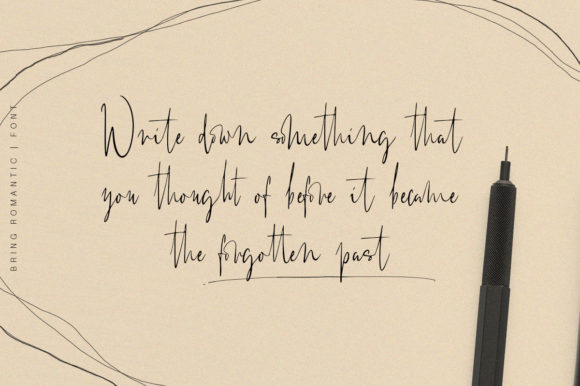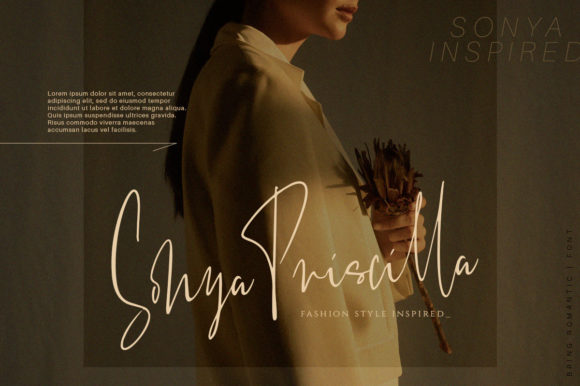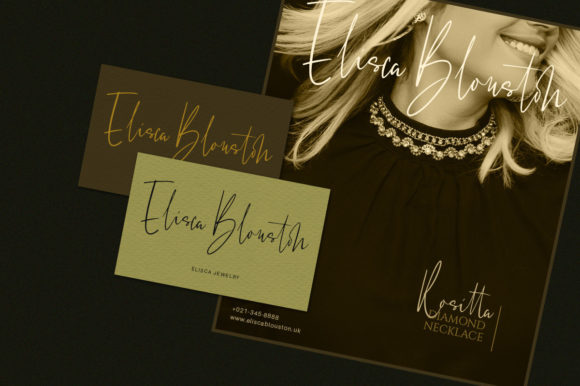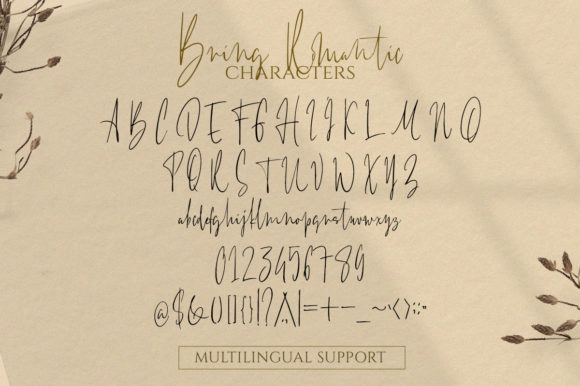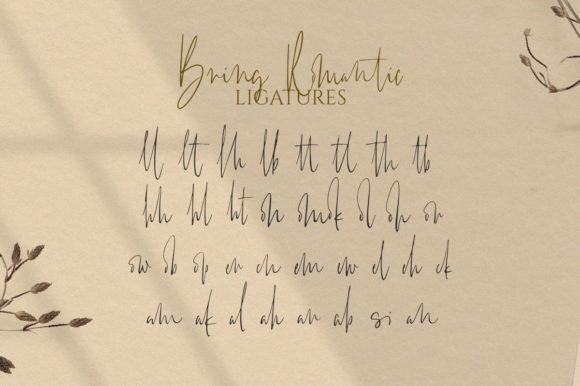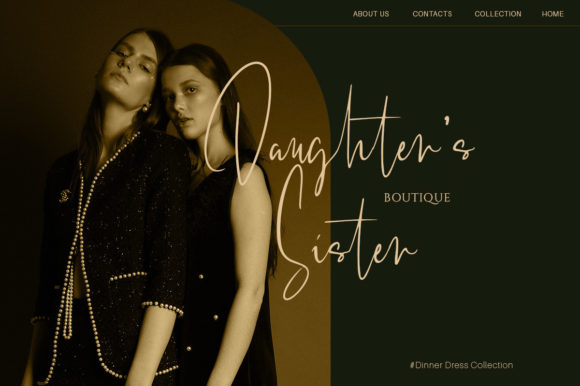
Get Ready to Fall in Love with Your Next Design Project
Have you ever been scrolling through social media, and a beautifully designed post catches your eye? You find yourself captivated by the elegant script, the delicate curves, and the overall romance of the design. It’s moments like these that inspire us to create something truly special.
That’s exactly what Bring Romantic Font is all about – creating a sense of romance and elegance in your designs. This thin lettered and stylish script font is perfect for crafting gorgeous wedding invitations, beautiful stationery art, and eye-catching social media posts. Whether you’re a professional designer or a creative hobbyist, Bring Romantic Font is a valuable tool that can help you bring your designs to life.
Bring Romantic Font Key Features
- Unique Characteristics: The font features elegant, flowing lines and intricate details, making it perfect for romantic and vintage-themed designs.
- Script and Ligature Support: The font includes a wide range of script and ligature combinations, allowing for a high level of expressiveness and creativity in typography.
Bring Romantic Font Review
Overall, I think Bring Romantic Font is a beautiful addition to any design project. ✨ The font’s elegant, handwritten style is perfect for creating a romantic and whimsical atmosphere.
- The font’s fluid connections between letters create a natural, handwritten feel.
- The font’s varying line widths and styles add to its unique and romantic character.
- The font’s range of weights and styles make it versatile and easy to use.
However, I do have some concerns:
- ⚠️ The font may be too ornate for some designs, potentially overwhelming the content.
- ⚠️ The font’s inconsistent letter spacing can make it difficult to read in some cases.
Overall, I think Bring Romantic Font is a great choice for designers looking to add a touch of elegance and romance to their projects. While it may have some limitations, its unique style and versatility make it a valuable addition to any design toolkit.
Tips for Getting the Most Out of Bring Romantic Font
For a romantic look, pair Bring Romantic Font with soft colors and delicate graphics. You can also use it to create a vintage or whimsical feel by combining it with distressed textures or floral patterns.
Bring Romantic Font is perfect for:
- Valentine’s Day and anniversary cards
- Love-themed social media graphics and posts
- Romantic novel covers and book titles